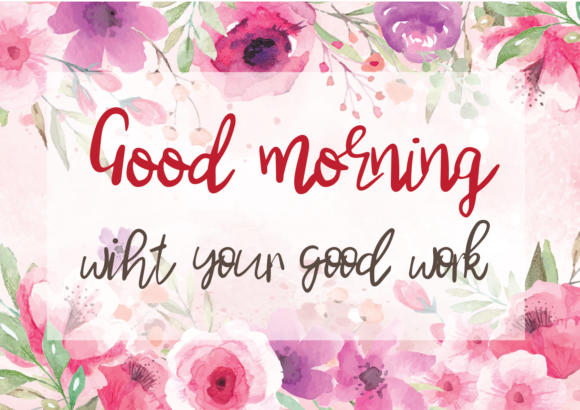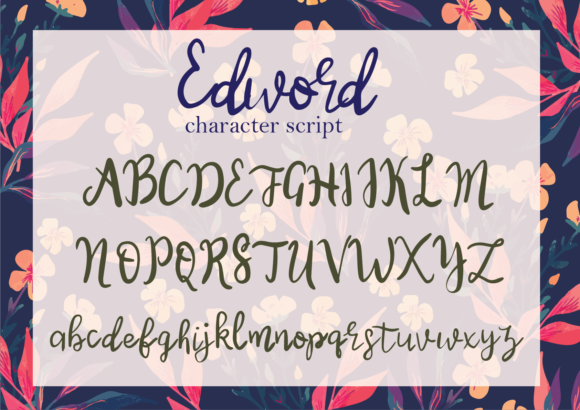
HomeScript FontsEdword Font Script Fonts Edword Font FacebookXPinterestWhatsApp Edword Font Poster 2 Edword Font Poster 3 About Edword Font Edword is a tender and romantic script with a playful twist. Fall in love with its unique charm! DOWNLOAD ON CREATIVE FABRICAThis font is sold and delivered by Creative Fabrica. Font Canyon may earn a commission if you buy through this link. People also explored Eterea Rivets Beach School Font Raleigh Modesto Font Dettallia Font Jacke Kambs Font Jinayra Font Stickers Font Cartoonilo Font 312 0 TagsEdword Font Previous articleCastillo FontNext articleSallia Font LEAVE A REPLY Cancel reply Comment: Please enter your comment! Name:* Please enter your name here Email:* You have entered an incorrect email address! Please enter your email address here Website: Save my name, email, and website in this browser for the next time I comment. Personal Use Free Crayones Personal Use Free Read more about this font Coconote Personal Use Free Read more about this font Happy Camping Personal Use Free Read more about this font Simple Personal Use Free Read more about this font BLOG The 10 Best Handwriting Fonts to Add Personality to Your Designs 10 of the Best Handwriting Fonts for Adding Personality to Your Designs There will undoubtedly be no other better choice than handwriting fonts to give... Transform Your Website: Elevate Your Typography with 7 Best Web Font Generators Free Fonts Risk: Why Free Fonts Can Be Dangerous for Designers Using Fonts in Digital Marketing: Tips to Strengthen Your Brand Identity